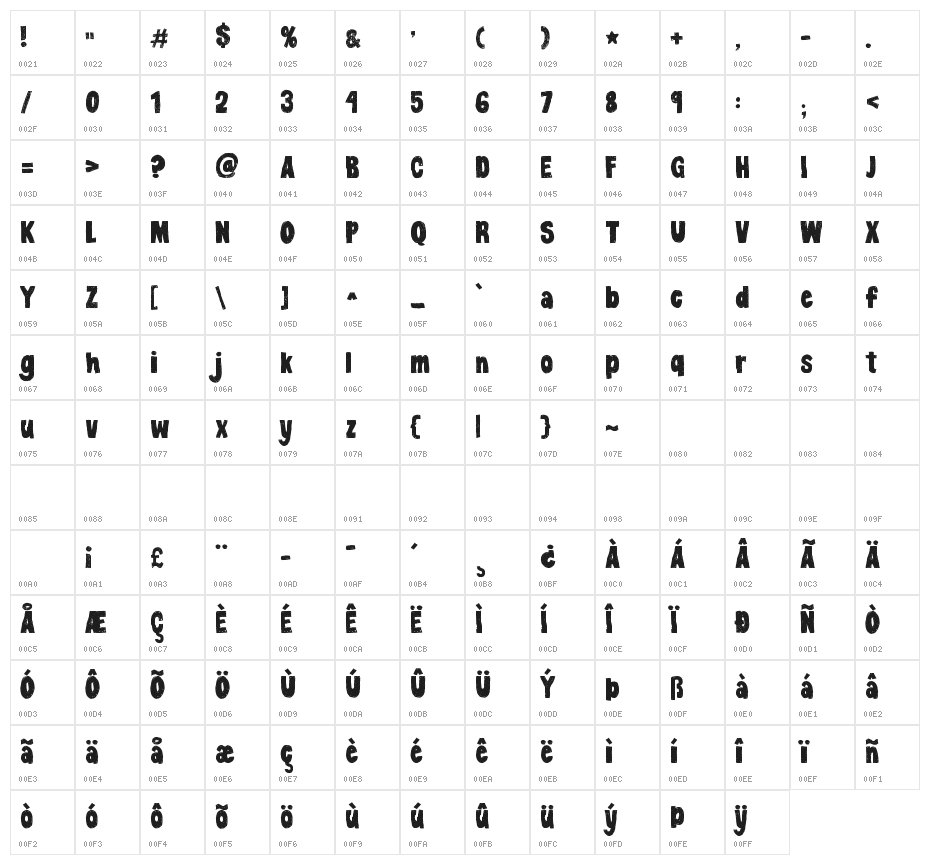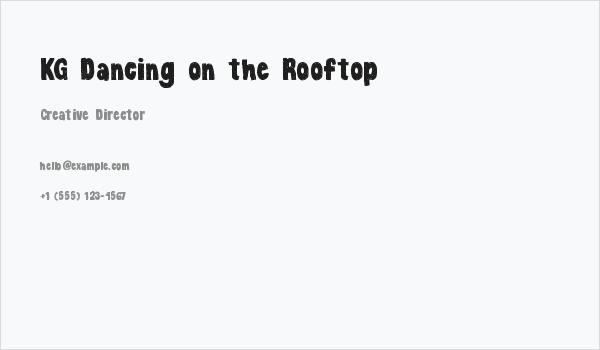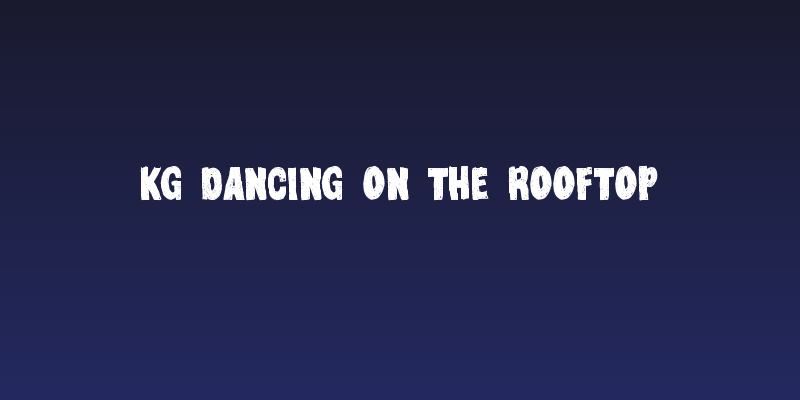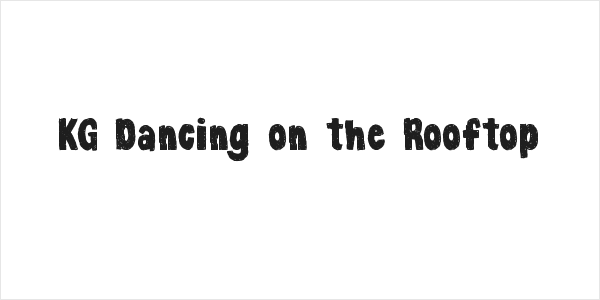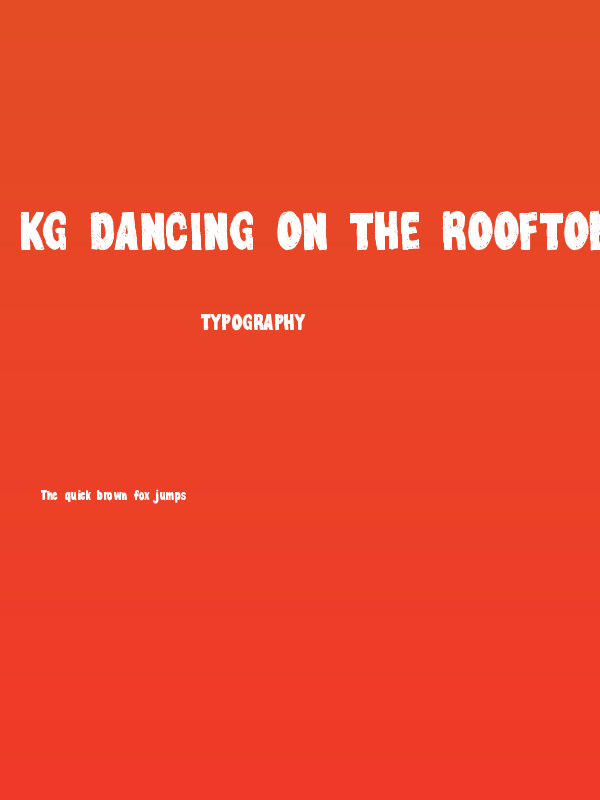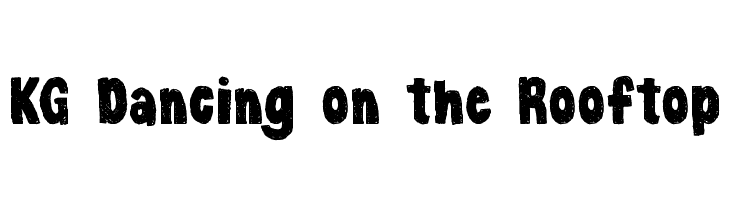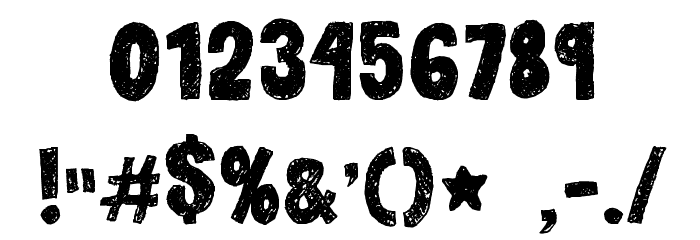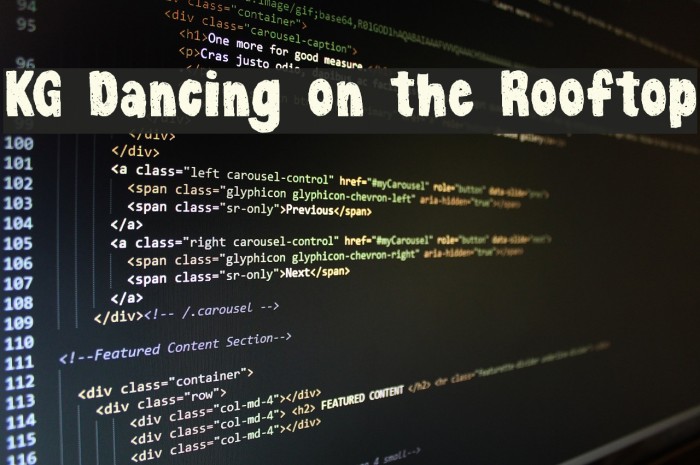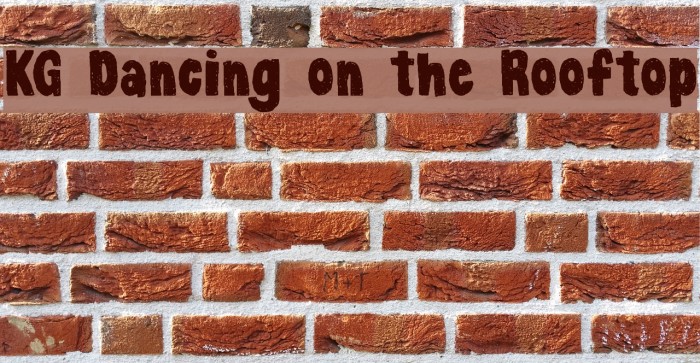
KG Dancing on the Rooftop Font
KG Dancing on the Rooftop Description
This font features a playful and bold style with a textured, distressed appearance that gives it a unique, handcrafted feel. The characters are slightly irregular, adding to its charm and making it stand out. The uppercase and lowercase letters maintain a consistent weight, while the numbers and special characters follow the same design ethos. Its boldness and texture make it ideal for projects that require a touch of whimsy and creativity.
| Proposed Projects | Ideal for children's book covers, playful posters, creative branding, and eye-catching headlines. |